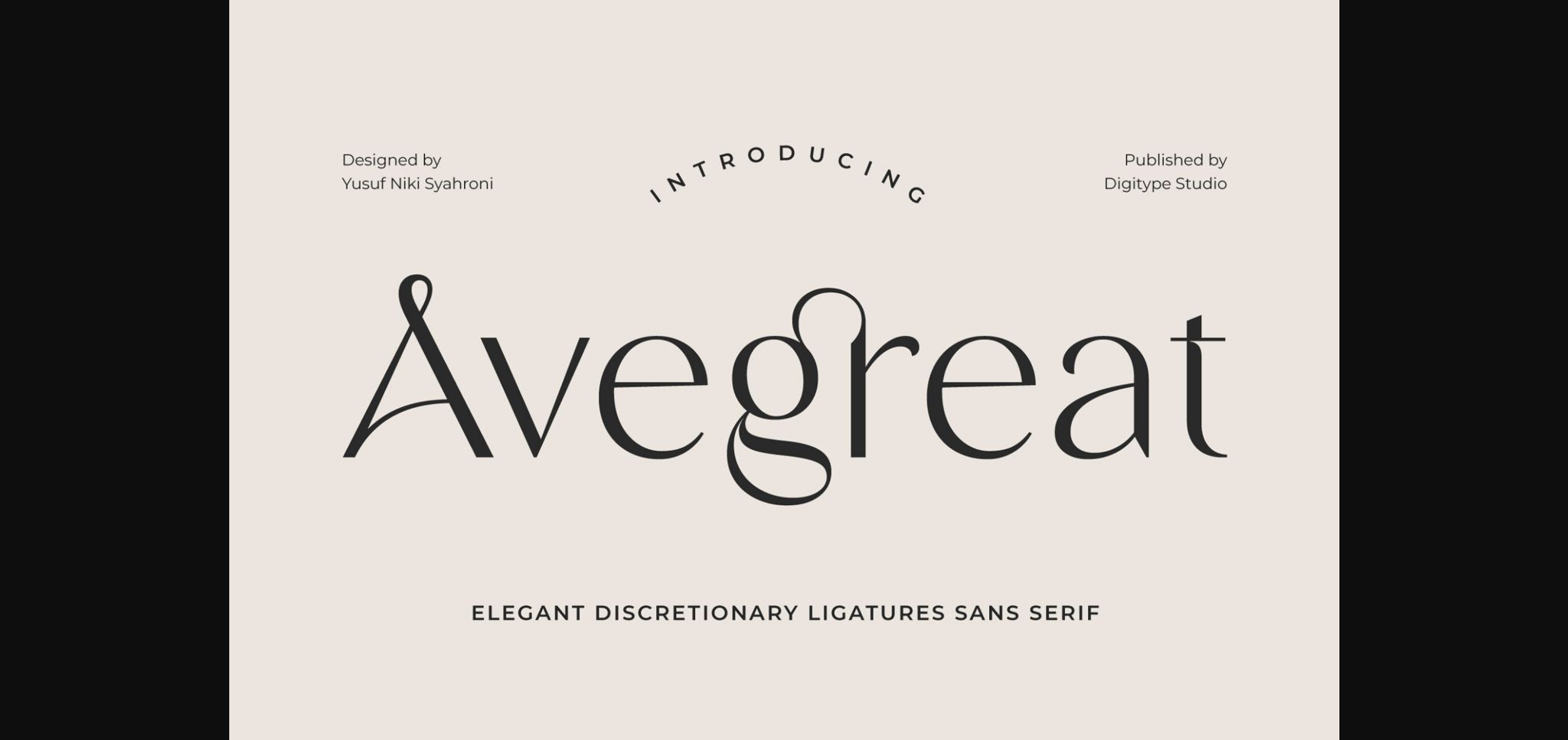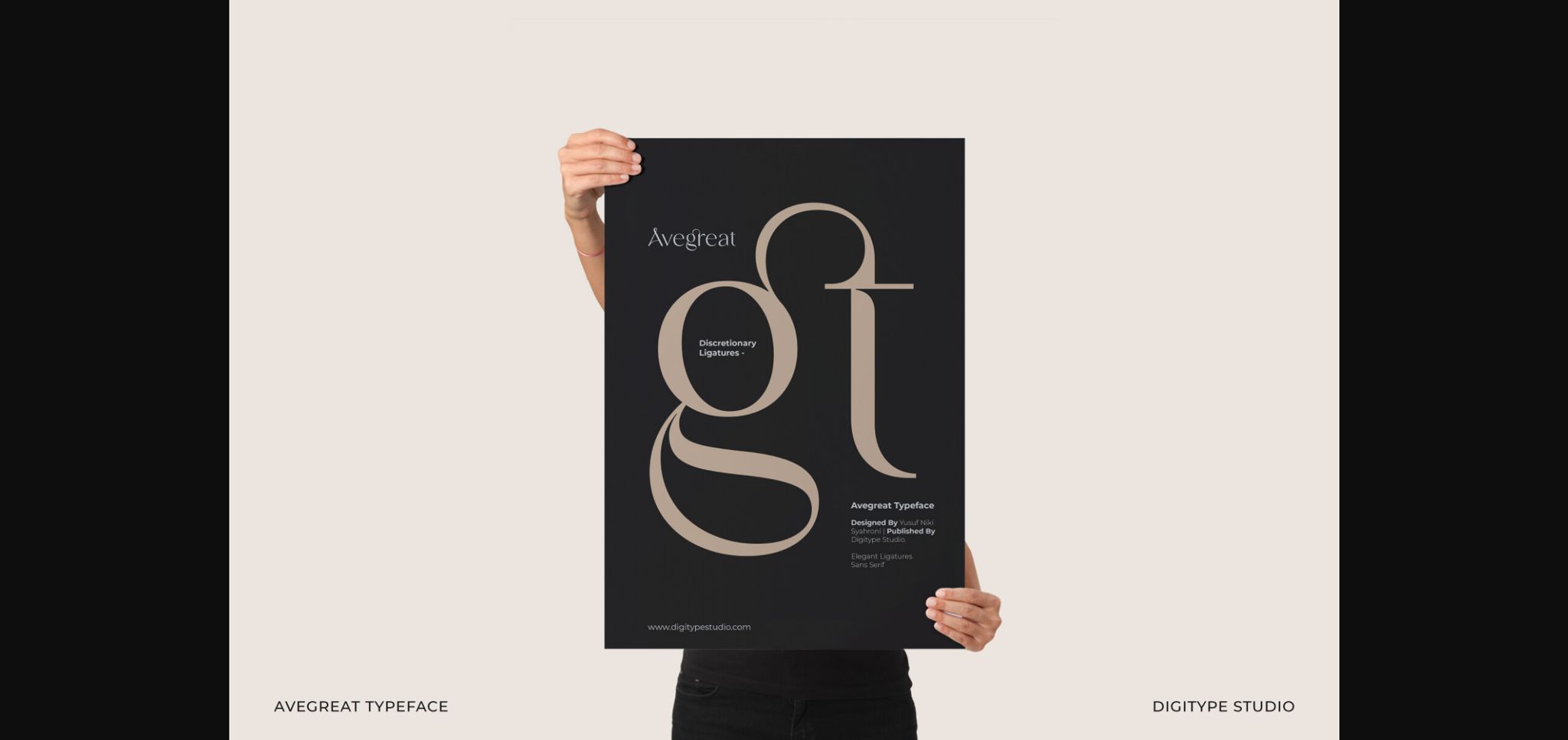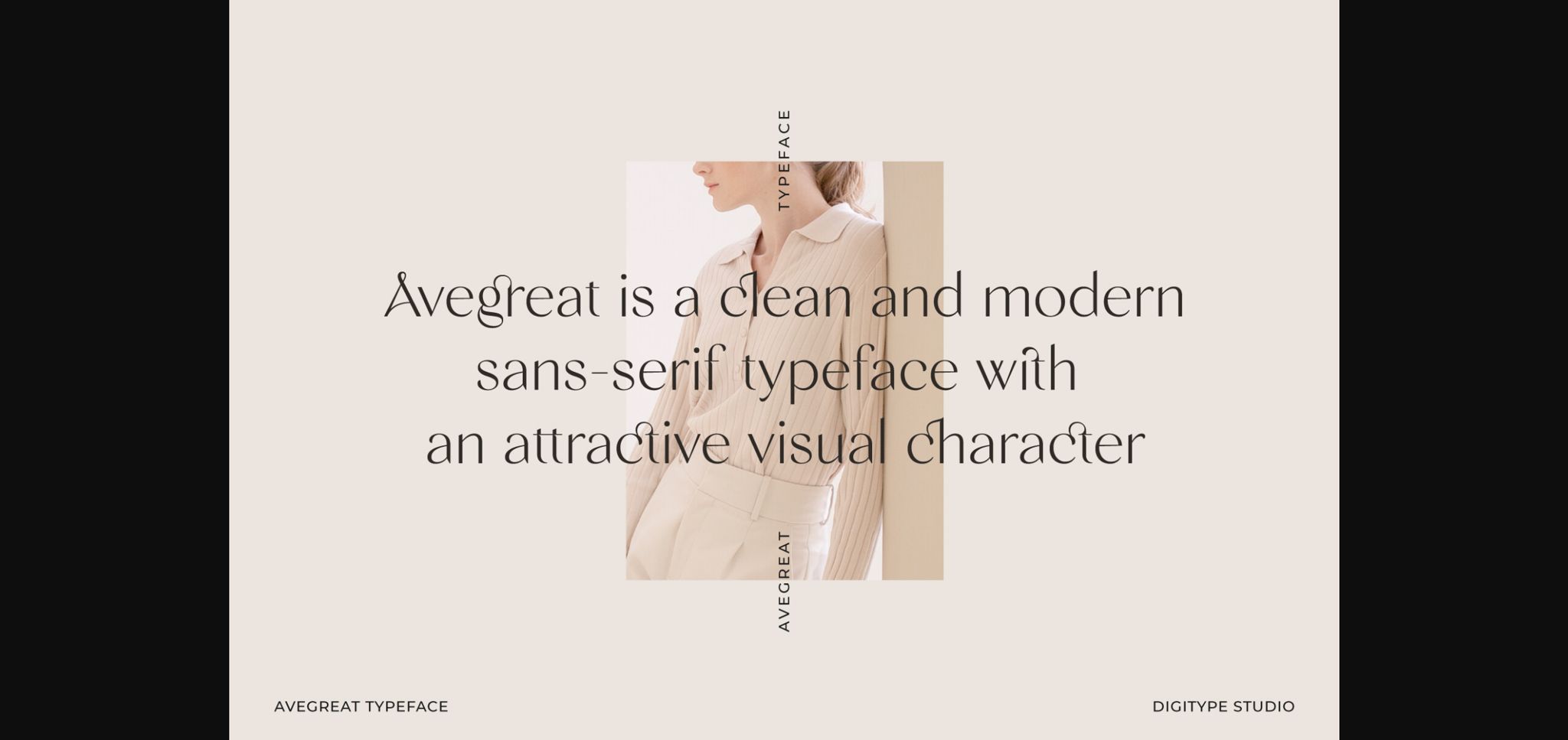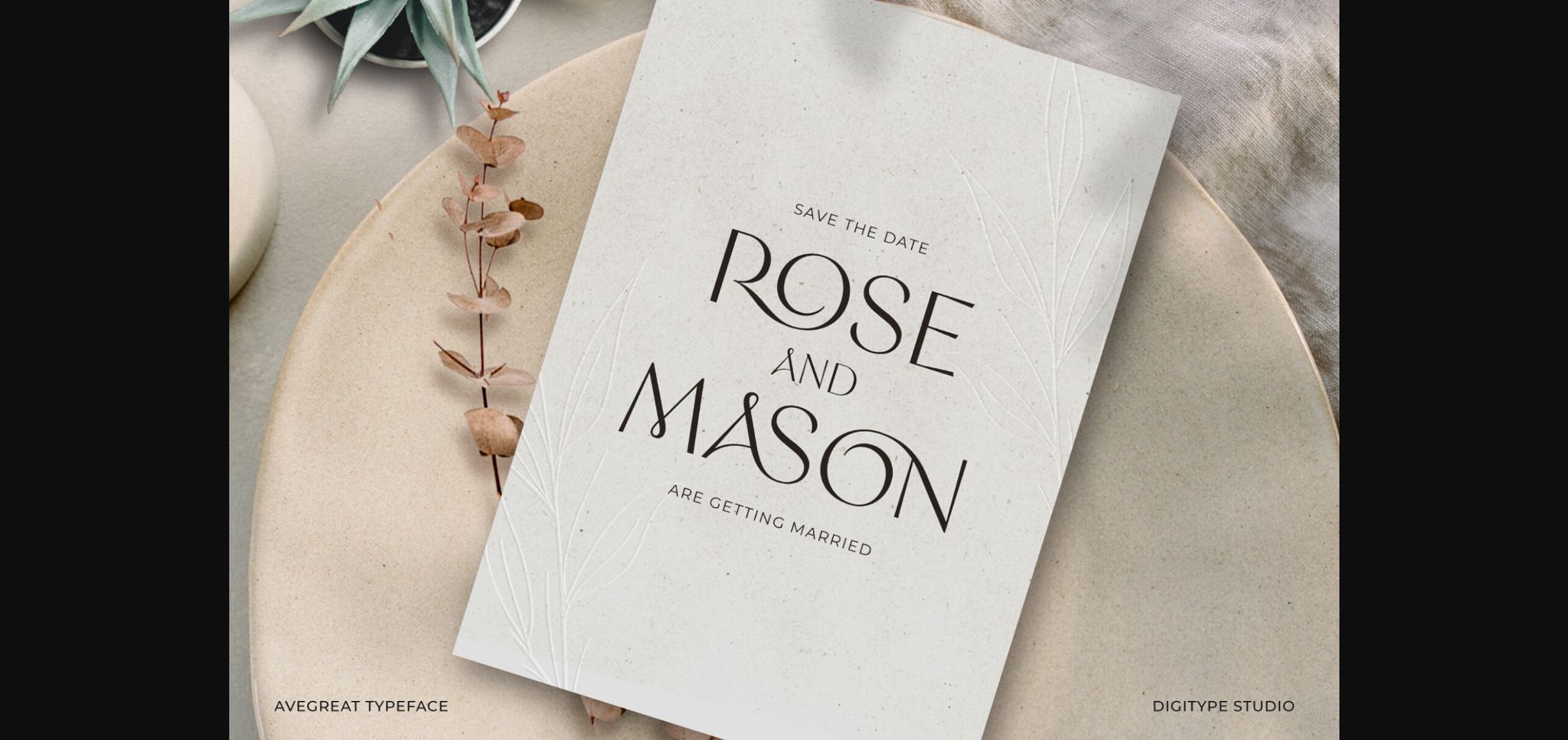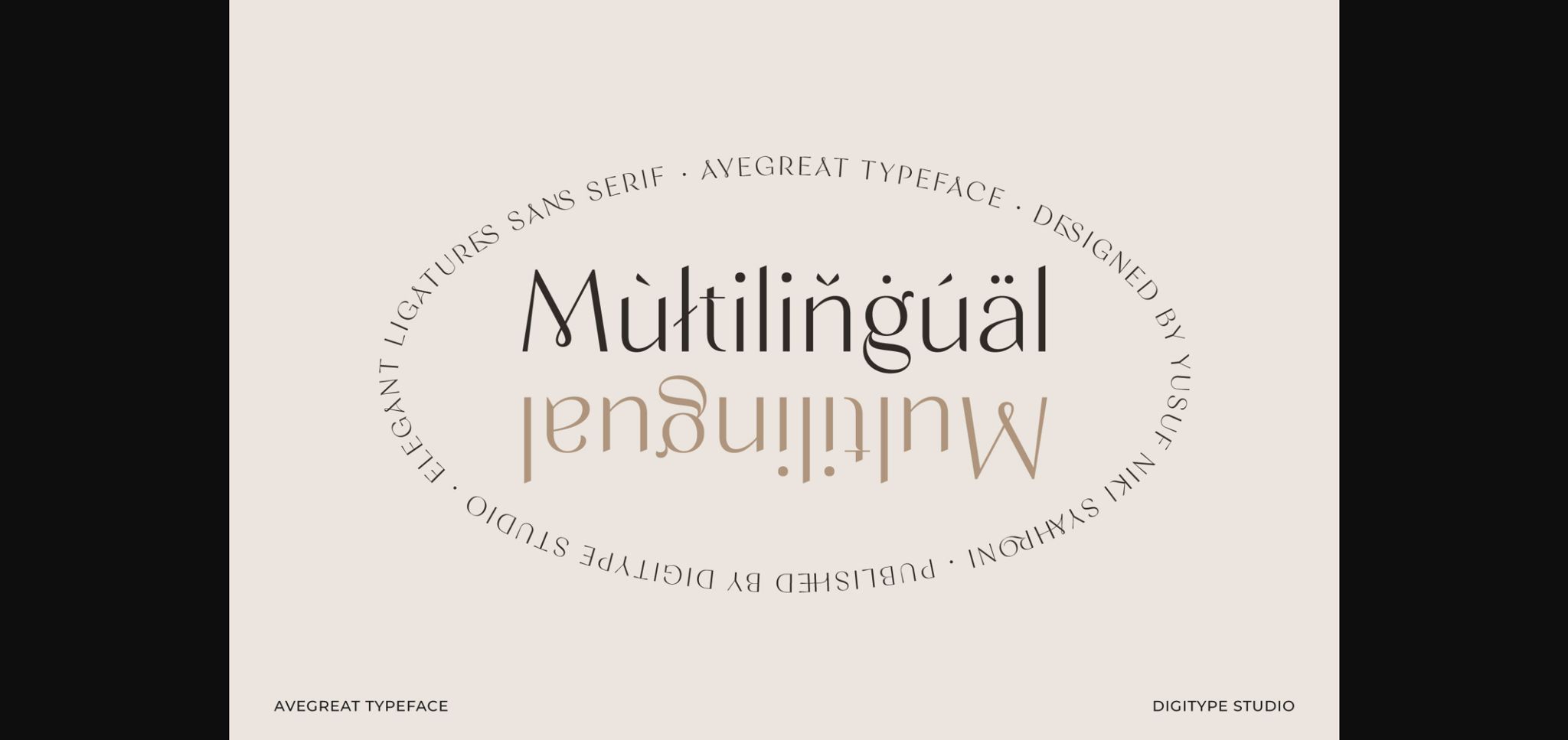
About Avegreat Font
Avegreat is a clean and modern serif typeface with a visually appealing character, complemented by a variety of discretionary ligatures, making it a chic serif font.
Perfect for versatile applications across various formal formats such as logos, wedding/invitation cards, packaging, magazines, fashion, books, makeup, invitations, novels, labels, stationery, or any advertising purposes.